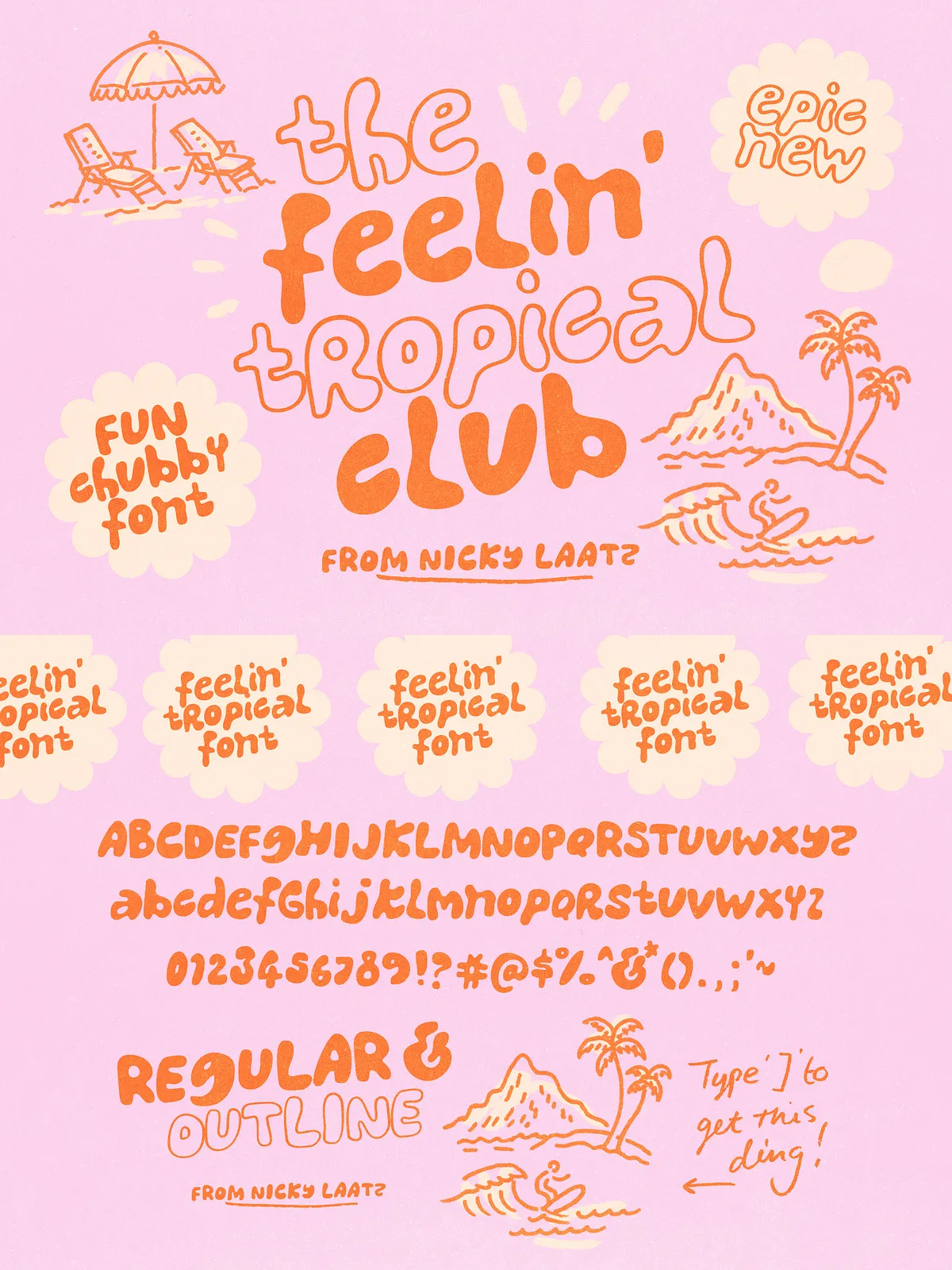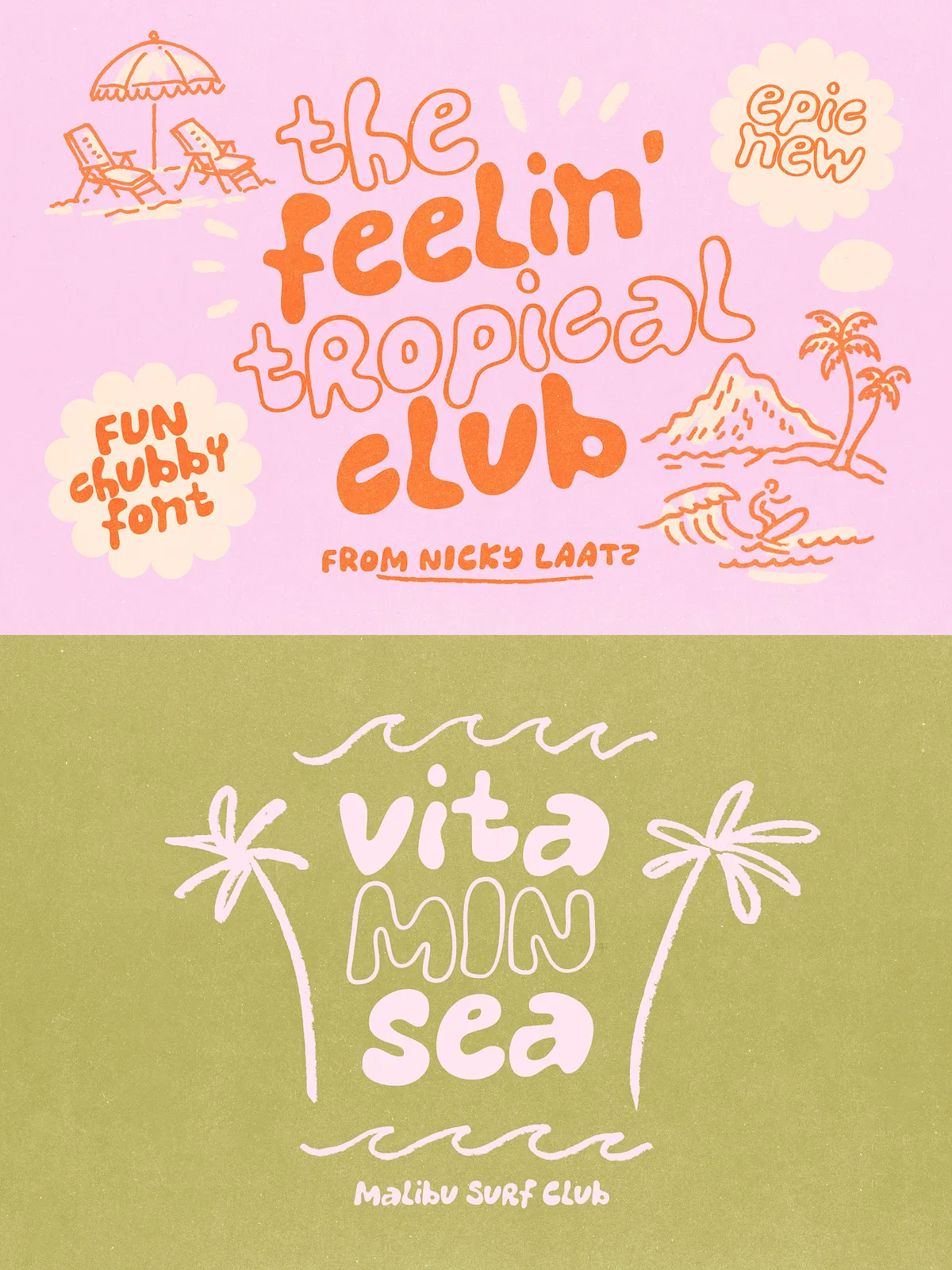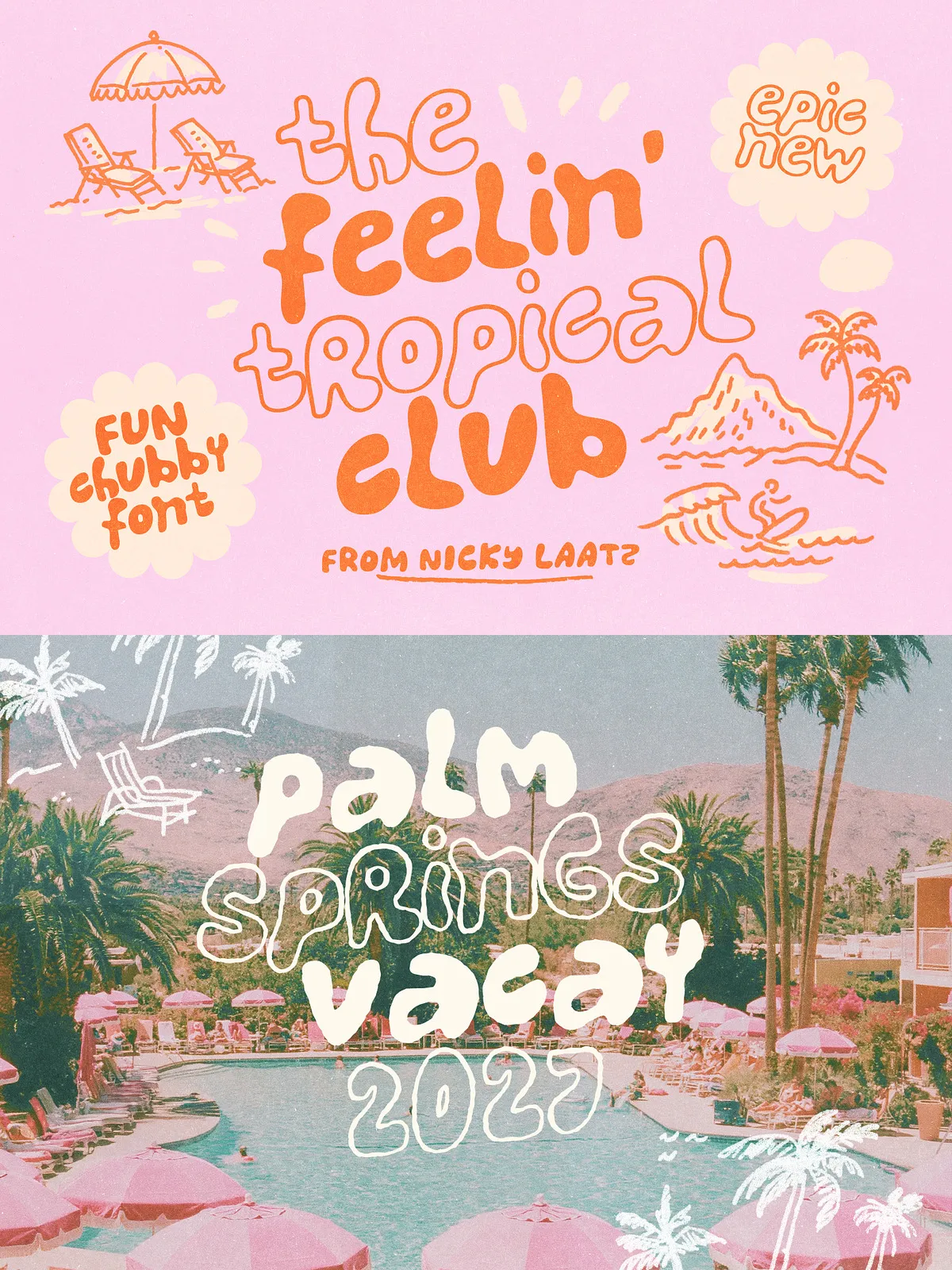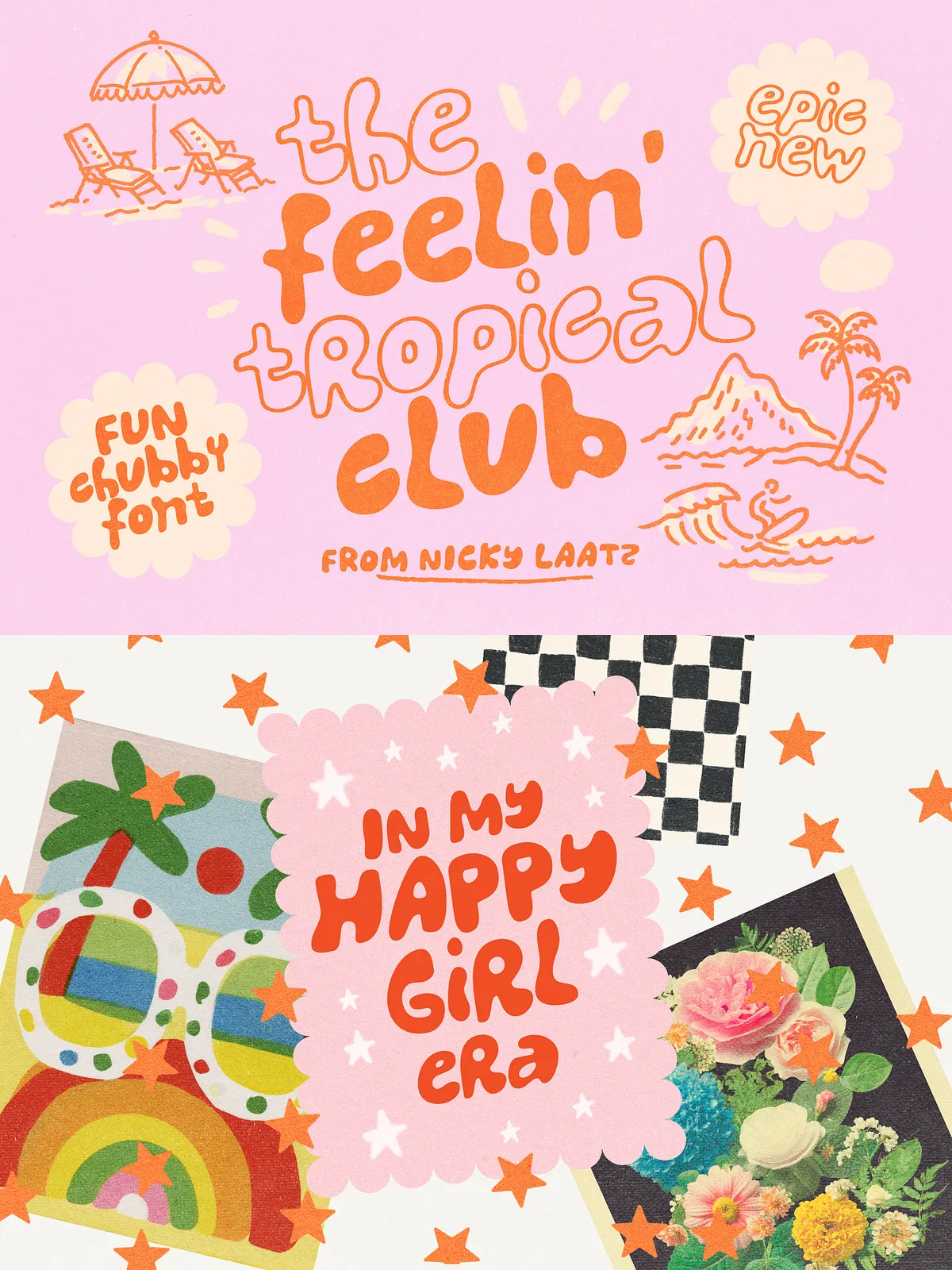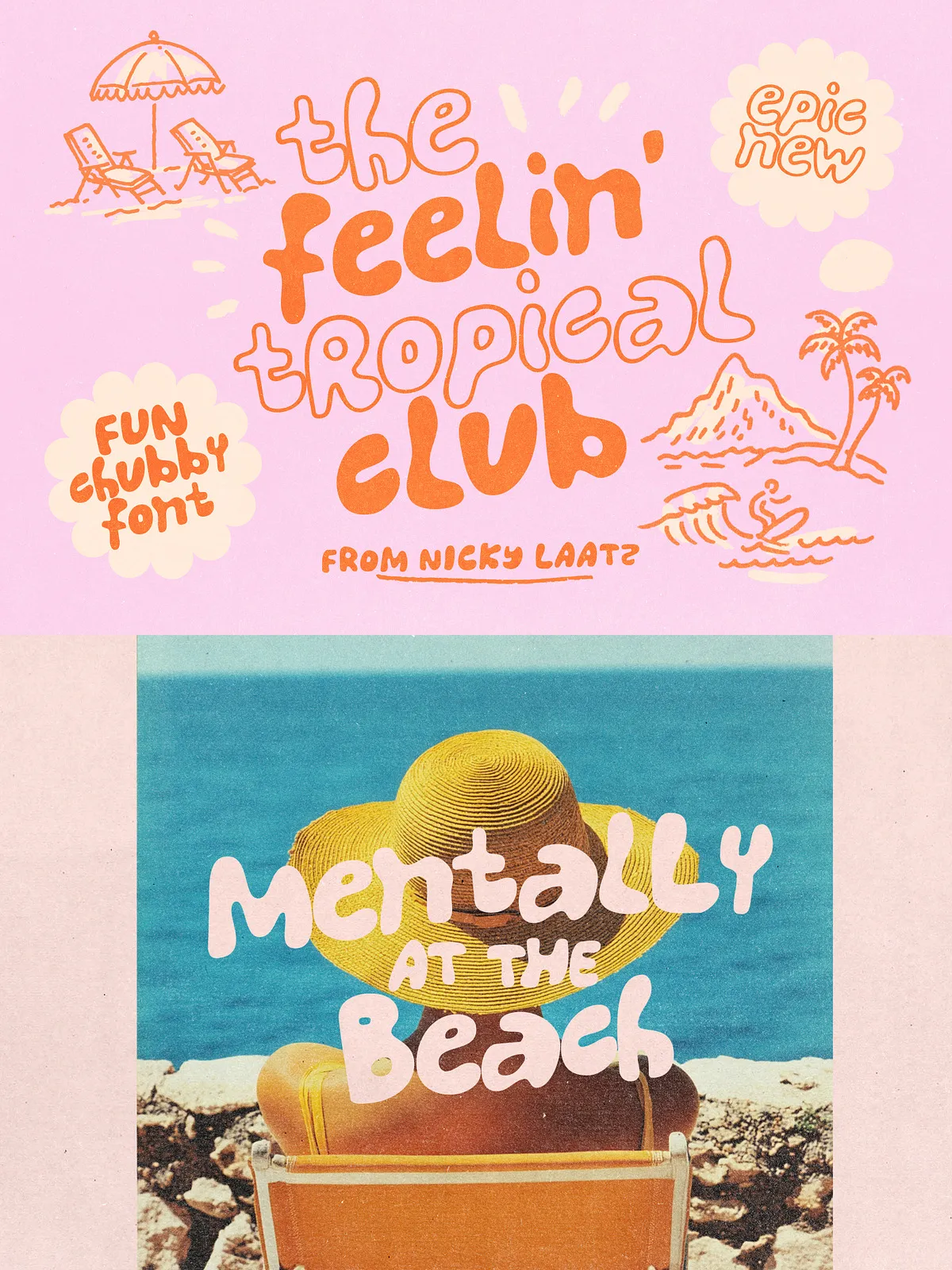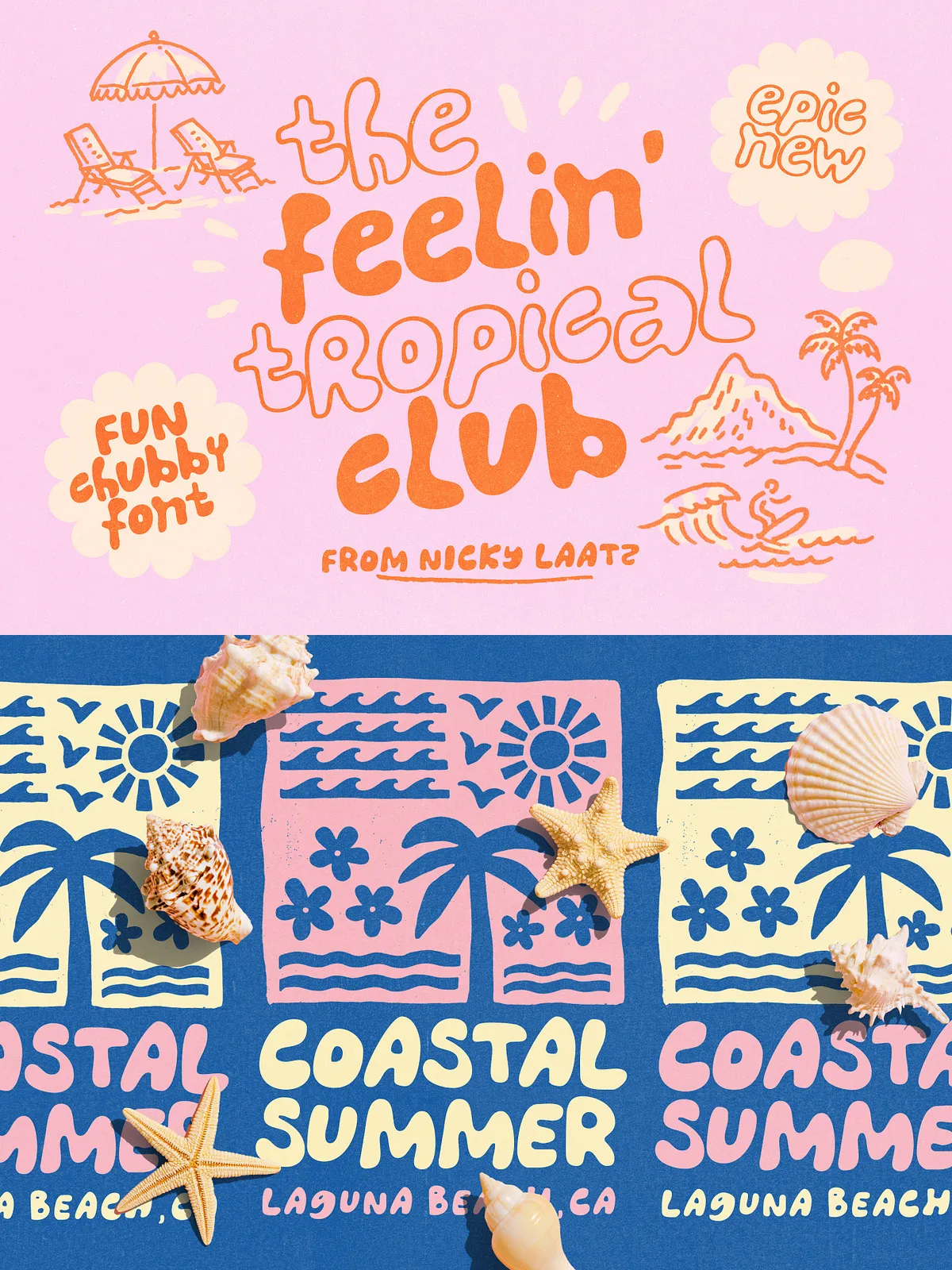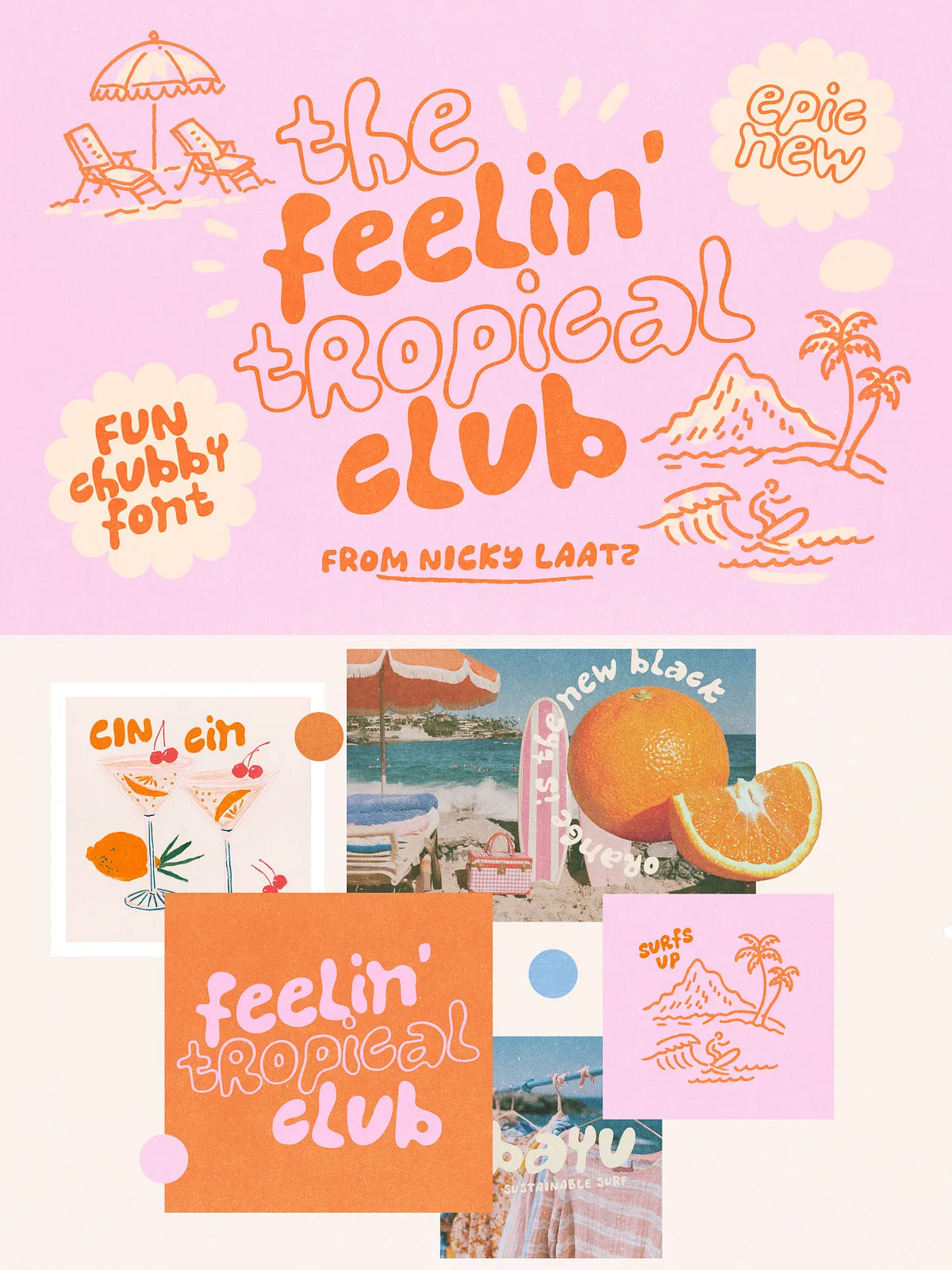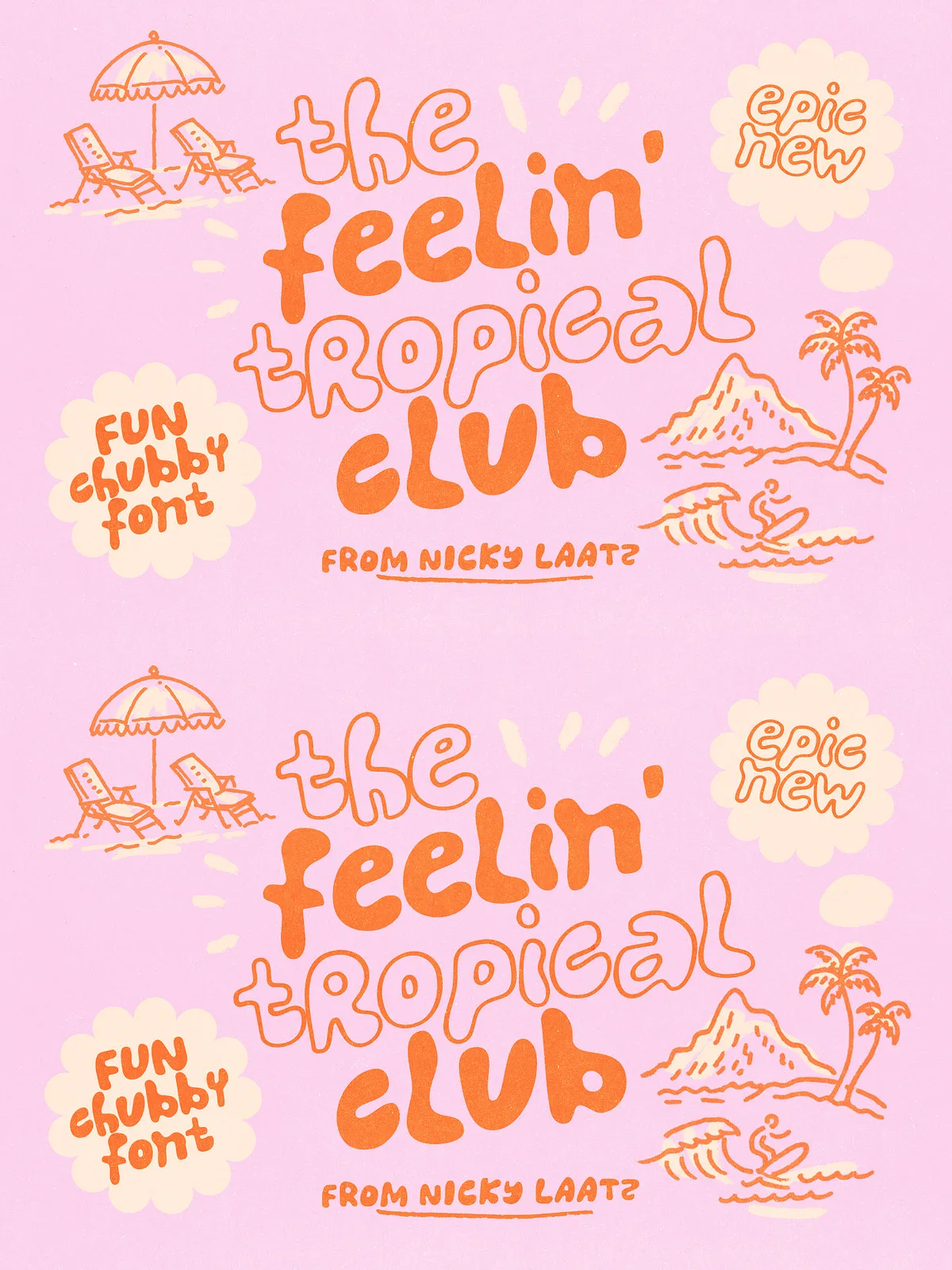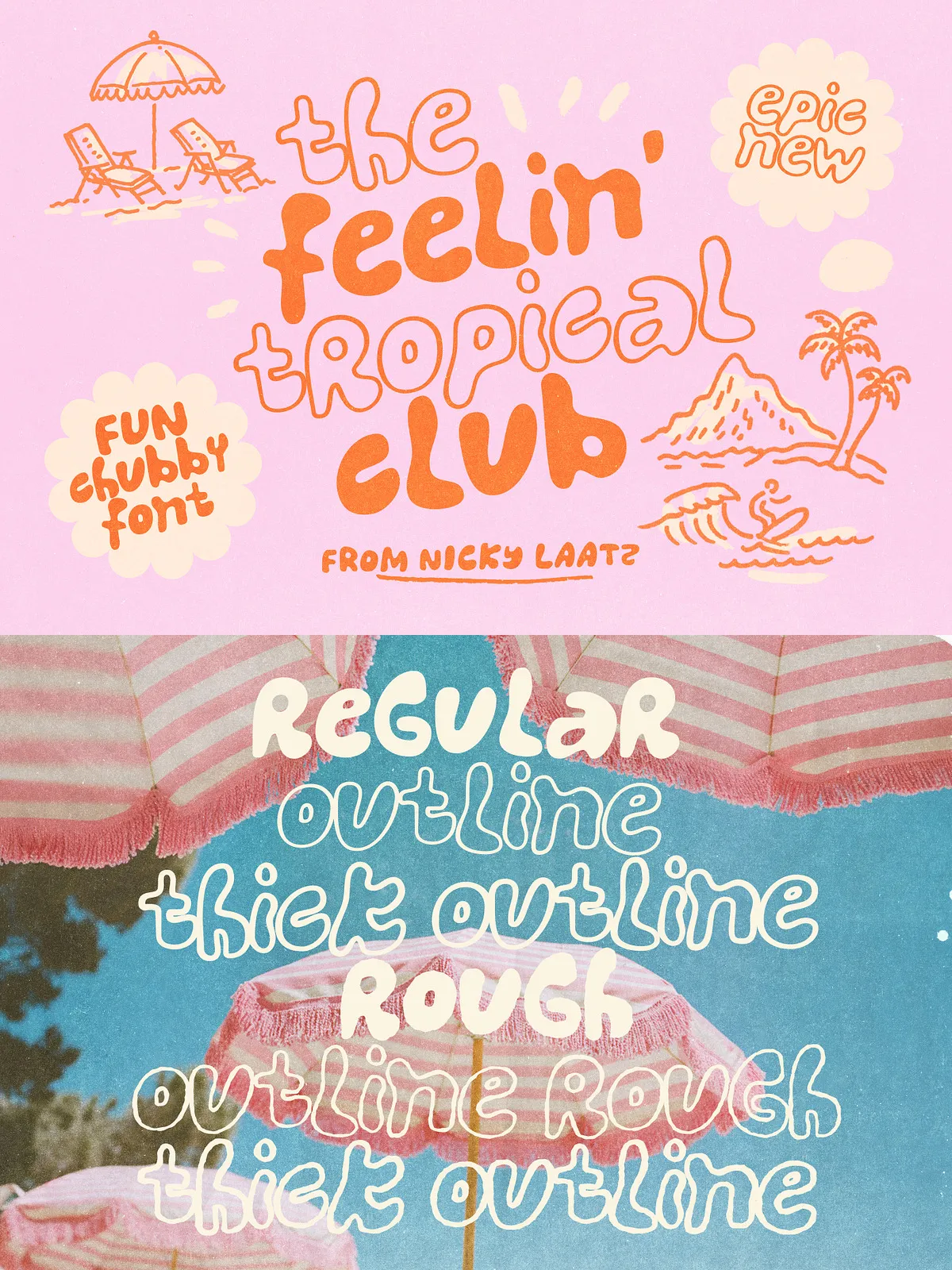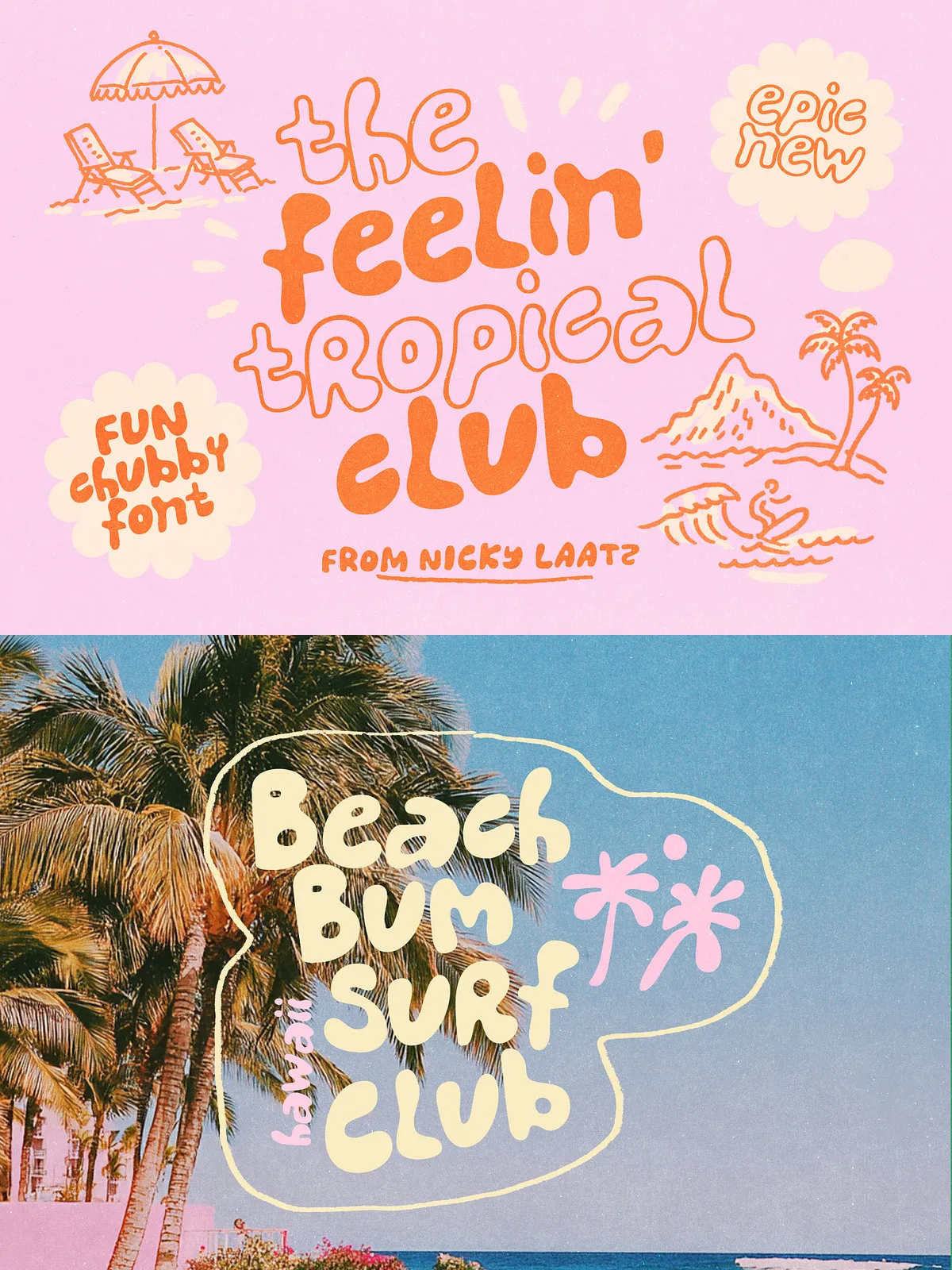
The Feelin’ Tropical Font Set delivers instant sunny character. Inspired by retro surf culture, tiki bars, and laid-back coastal signage, this hand-drawn display family injects playful, bubbly personality into headlines, logos, and packaging. Each glyph feels crafted by hand — inviting, imperfect, and full of nostalgic warmth. Use it when you want design that reads like a vacation postcard: bright, bold, and unmistakably tropical.
Styles
- Regular (smooth)
- Outline
- Thick Outline
- Rough Regular (textured)
- Rough Outline
- Rough Thick Outline
Character Set & Language Support
Hand‑Drawn Charm
Every letter shows organic edges, playful curves, and chunky proportions that evoke hand-painted signs and vintage surf posters. The rough styles add authentic grain and wear that read beautifully in print and screen contexts where texture matters.
Flexible Display System
The six complementary styles let you mix and layer faces for dynamic compositions. Combine smooth and outline styles for stacked headlines, or pair a rough outline with a thick fill for bold merch and apparel graphics. The set is built to work together, giving you fast, consistent creative options.
Ready for Real Projects
The Feelin’ Tropical set behaves reliably at large sizes, making it ideal for posters, signage, and packaging. It also holds up well in social graphics, editorial covers, and apparel print runs. Designers can implement the fonts across web, print, and merchandise workflows without additional tools.
Recommended Uses
- Surf and beach-themed branding and identities
- Event posters, festival signage, and concert art
- Packaging for food, beverage, and tropical-inspired products
- Apparel, merchandise, and print-on-demand designs
- Restaurant menus, cafe specials, and hospitality signage
- Wedding invitations, party collateral, and seasonal promos
- Social media banners, ads, and engaging web headers
Pairing & Styling Tips
Pairing Advice
For body copy, pair The Feelin’ Tropical with a neutral sans-serif or a restrained serif to preserve legibility and let the display font take the spotlight. Use the smooth Regular for friendly headlines, and add Outline or Thick Outline styles for emphasis and layered textures.
Color & Texture
Amplify the tropical mood with saturated sunset hues, faded pastels, or sun-washed palettes. Introduce subtle grain or paper textures behind the lettering to enhance the hand-made feel. For apparel and merchandise, test screen-print separations to maintain the font’s bold silhouette and textured details.